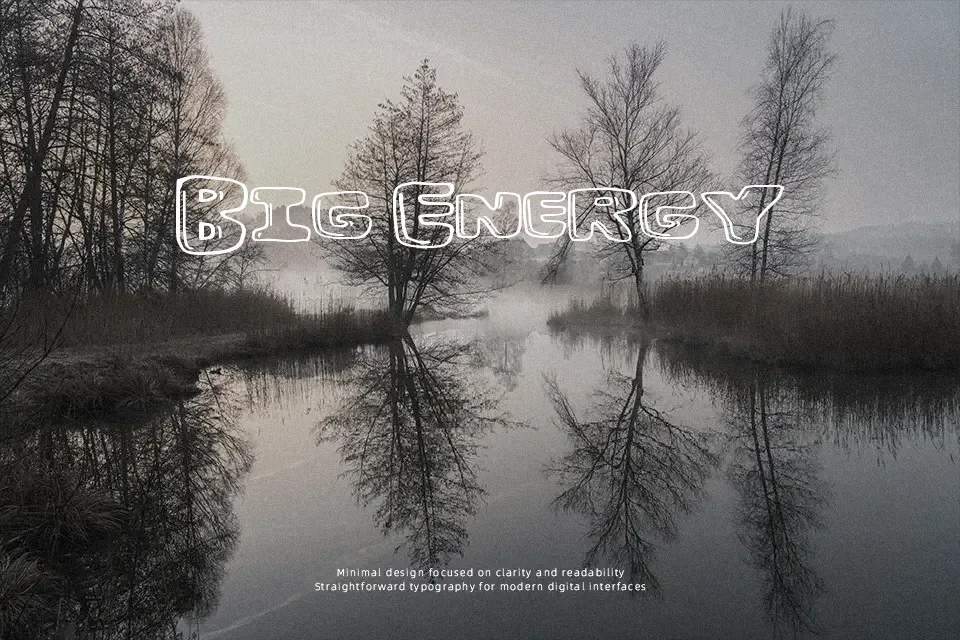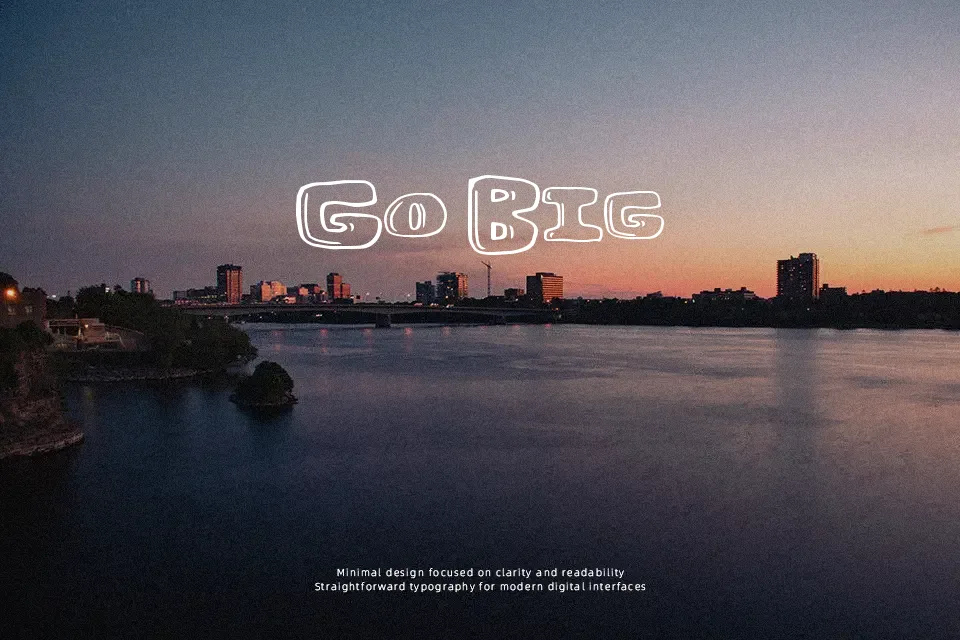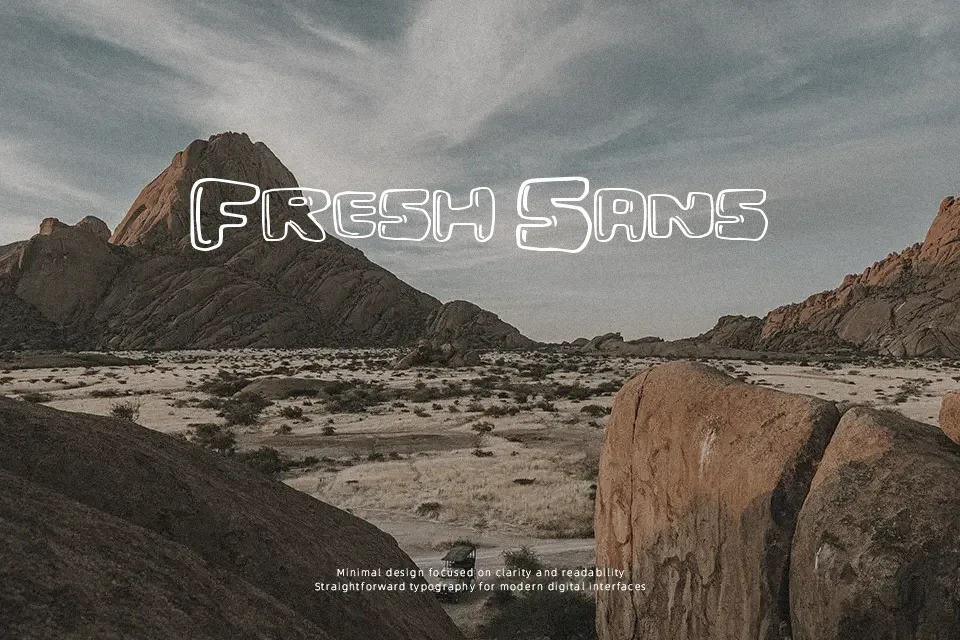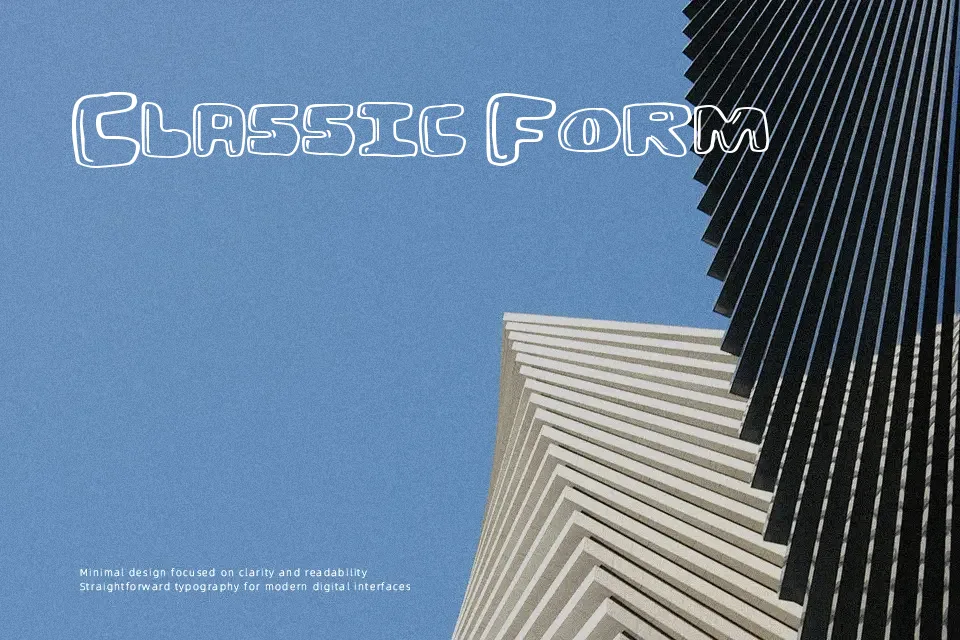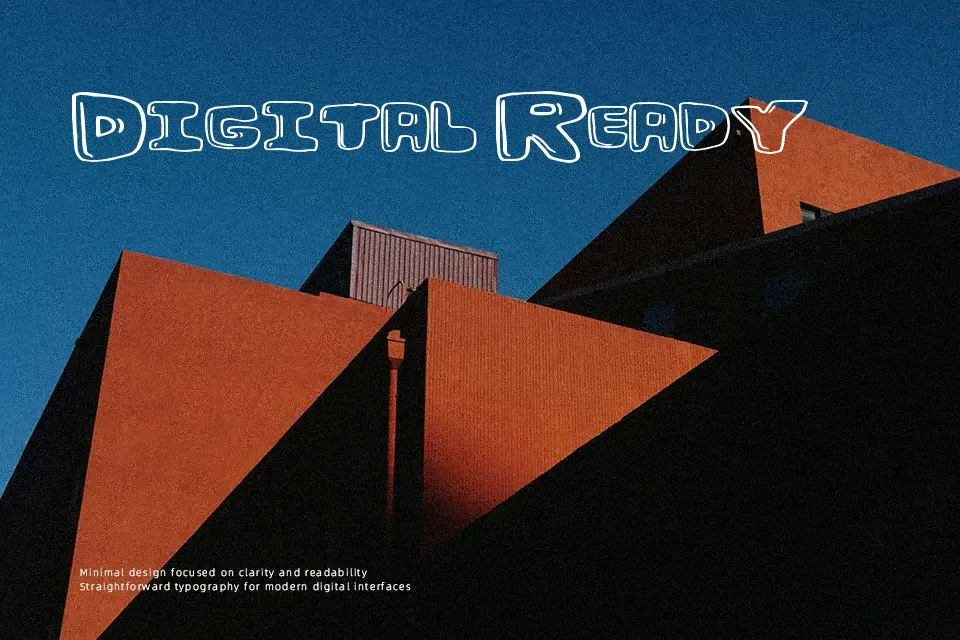
Burger Hut Font
Burger Hut is a bold, rounded display font with thick strokes, loose structure, and a slightly wobbly outline that gives it a hand-drawn, cartoon look. The letters sit fairly tight together, so the text reads as big blocks of playful shapes rather than delicate wordforms. Visually it leans fun and informal, closer to comic signage and fast-food branding than to clean UI or long reading text. In practice it shines on burger shop menus, snack packaging, party flyers, and children’s event graphics where you only need a few loud words. It tends to feel heavy and noisy in dense paragraphs or minimalist layouts, so it is better kept for short headlines and logos rather than serious editorial work.
fast-food or diner logo wordmarks
kids’ party or event posters
playful menu boards and food truck signage
cartoon-style social media graphics
body text or long reading layouts
formal corporate branding or reports
minimalist, highly refined editorial design
small-size UI labels or app interfaces
Perfect for branding, logo, and poster, with a bold and cartoon style.